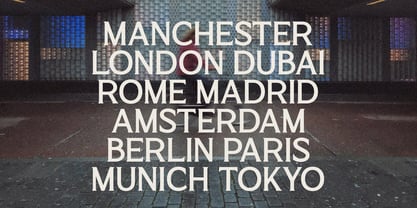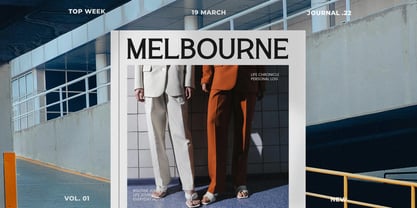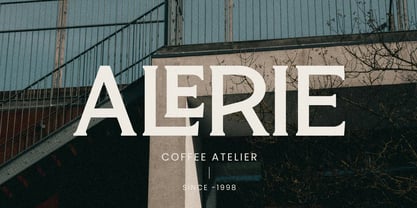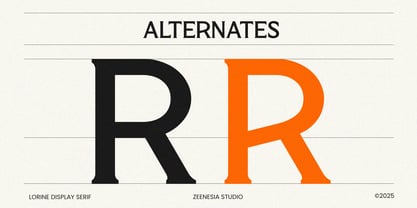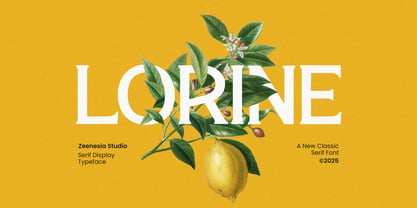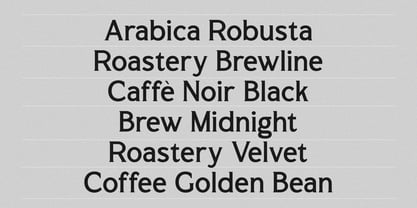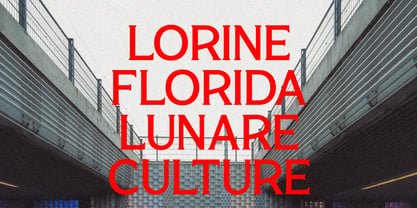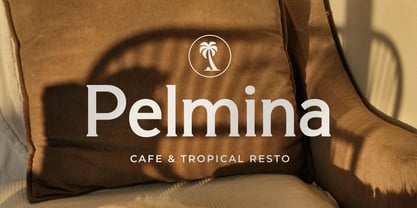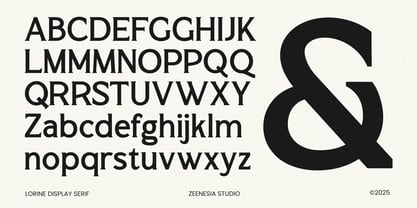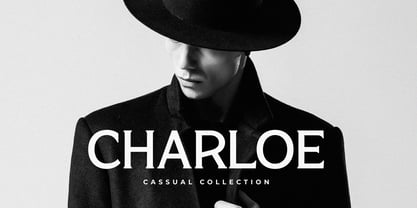
Lorine
by Zeenesia Studio
The Lorine Font Family was designed by Doni Purwoko and published by Zeenesia Studio. Lorine contains 2 styles and family package options. More about this family
Lorine is a refined classic serif display typeface that blends timeless elegance with a fresh contemporary feel. Designed with graceful proportions, sharp yet subtle serifs, and balanced contrast, Lorine delivers a sophisticated visual presence that feels both luxurious and approachable. Inspired by classic editorial typography, Lorine is perfect for branding, fashion projects, magazines, book covers, packaging, and high-end visual identities. Its strong character and elegant details make headlines stand out while maintaining clarity and charm. With its modern classic personality, Lorine brings warmth, confidence, and style to every design—making it an ideal choice for creatives who seek a serif font that feels timeless, expressive, and memorable.